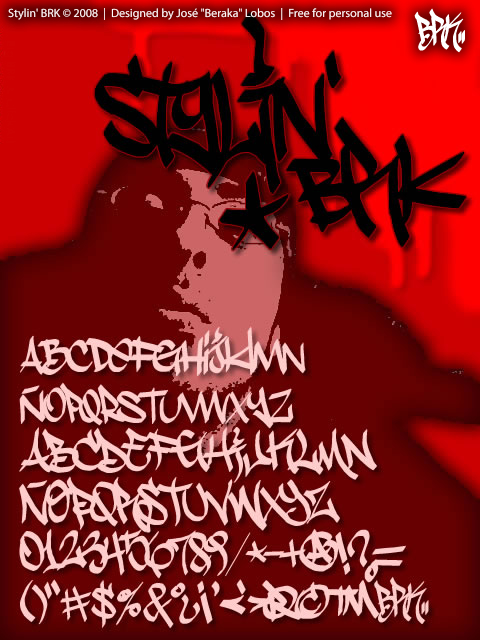
Preview and download Stylin' BRK Font. Created by Beraka Design in Script Graffiti styles with Free for personal use license.
Font name: | Stylin' BRK |
Author: | Beraka Design |
Note by Beraka Design | |
First font design. Simple marker style tag design. |